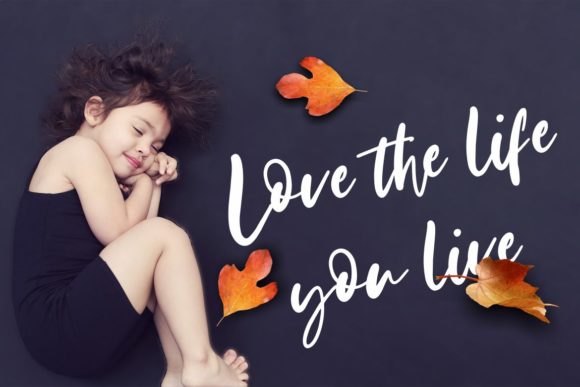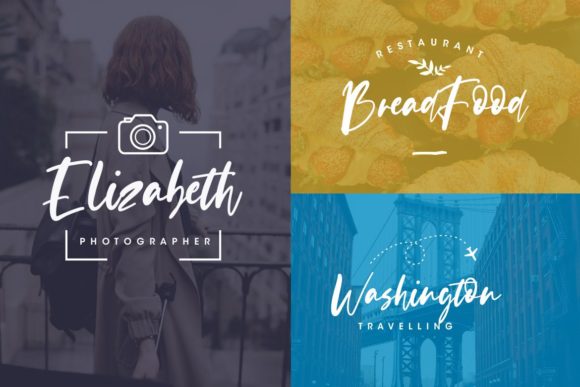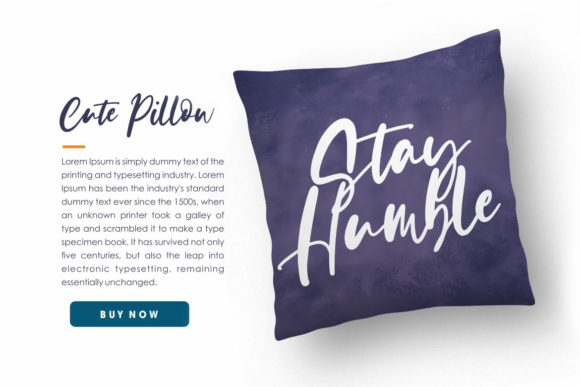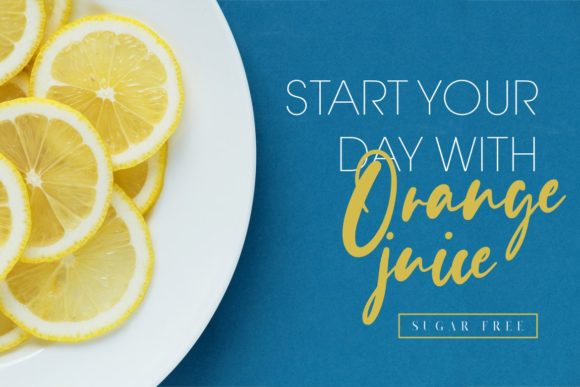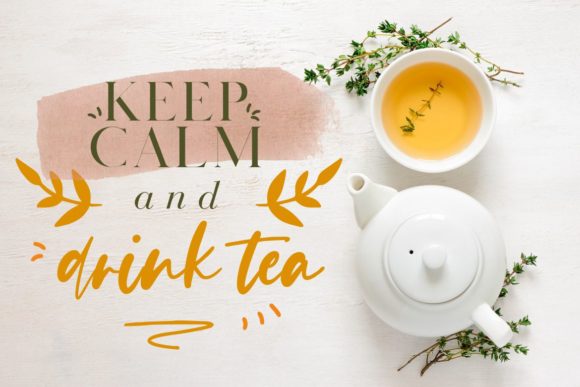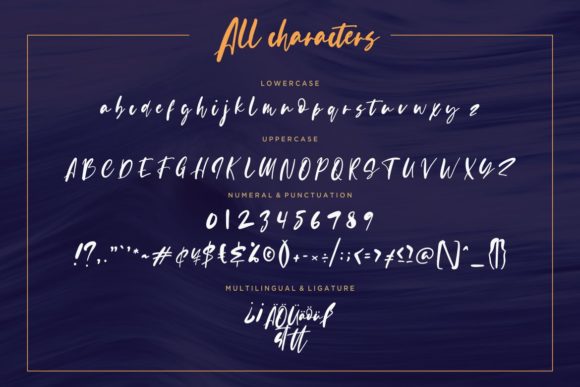
Falling in Love with Evangeline Font: A Timeless Beauty
I still remember the design project that led me to discover the Evangeline font. I was working on a branding project for a cozy bookstore, and I was struggling to find the perfect font that would capture the warm and inviting atmosphere of the store. The client was looking for something bold, yet charming, and I was on a mission to find it. That’s when I stumbled upon Evangeline, and I was immediately smitten.
A Beautiful, Bold, and Charming Font
Evangeline is a beautiful, bold, and simply charming font that has won my heart. Its timeless authenticity makes it perfect for a wide range of design projects, from branding and advertising to crafting and creative hobbies.
- ✨ Timeless authenticity: Evangeline has a classic, vintage feel that never goes out of style.
- ✅ Bold and eye-catching: This font is perfect for headlines, titles, and any text that needs to stand out.
- 💕 Charming and elegant: Evangeline has a certain whimsy and romance to it, making it perfect for projects that require a touch of personality.
While Evangeline is an amazing font, there are a few things to keep in mind:
- 🤔 Limited font weights: Evangeline is available in a limited number of font weights, which may not be suitable for all design projects.
- ⚠️ Glyph limitations: While Evangeline has a wide range of glyphs, it may not have every special character or symbol you need.
The Backstory of Evangeline Font
The Evangeline font was designed with the goal of creating a timeless and elegant typeface that would evoke a sense of nostalgia and romance. The designer drew inspiration from classic typography and infused the font with a modern twist, making it perfect for a wide range of design projects.
| Author | CreatypeStudio |
Q: What is the Evangeline font best used for?
A: Evangeline is a versatile font that can be used for a wide range of design projects, including branding, advertising, crafting, and creative hobbies.
Q: Is Evangeline available in multiple languages?
A: Yes, Evangeline supports multiple languages, including English, French, Spanish, and more.